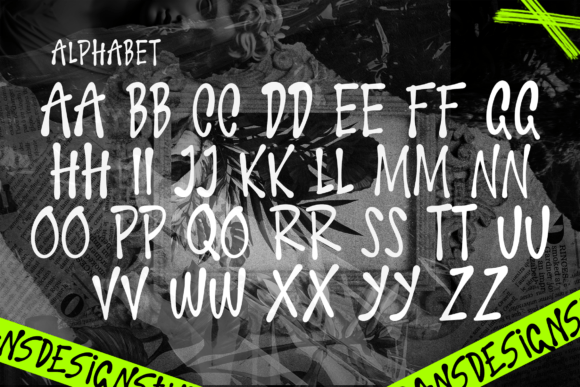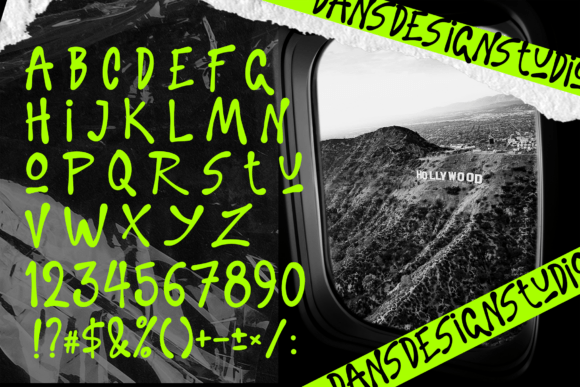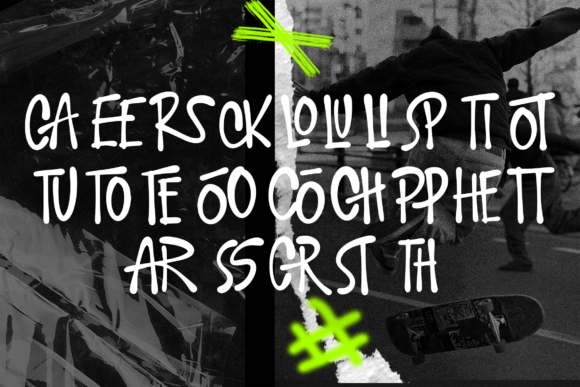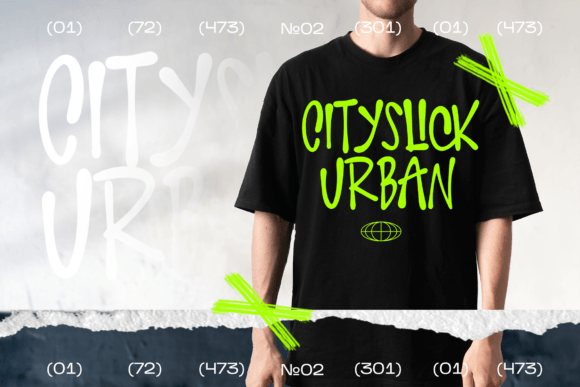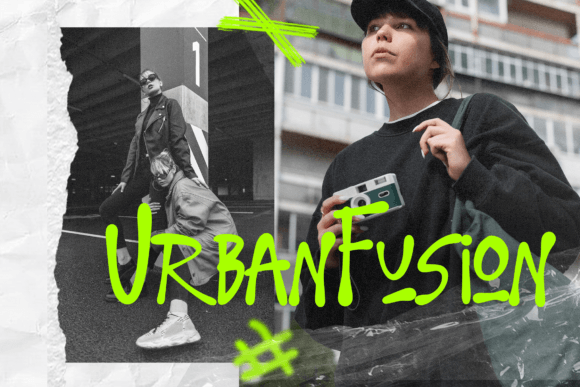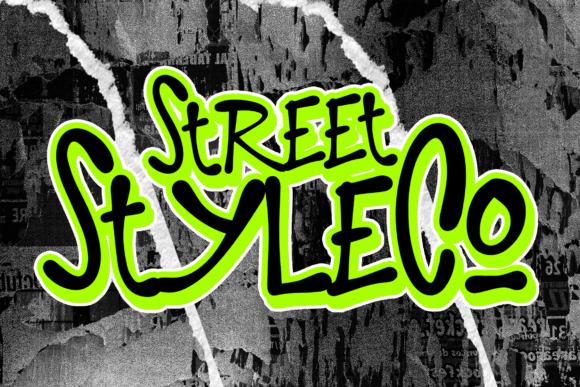
Introduction to Black Savage Font
Black Savage is a bold and modern font designed with an ink marker style.
Its striking appearance adds a powerful touch to your designs, making it perfect for attention-grabbing headlines and impactful displays With its sleek and contemporary look, Black Savage stands out on posters, banners, and logos, ensuring your message gets noticed.